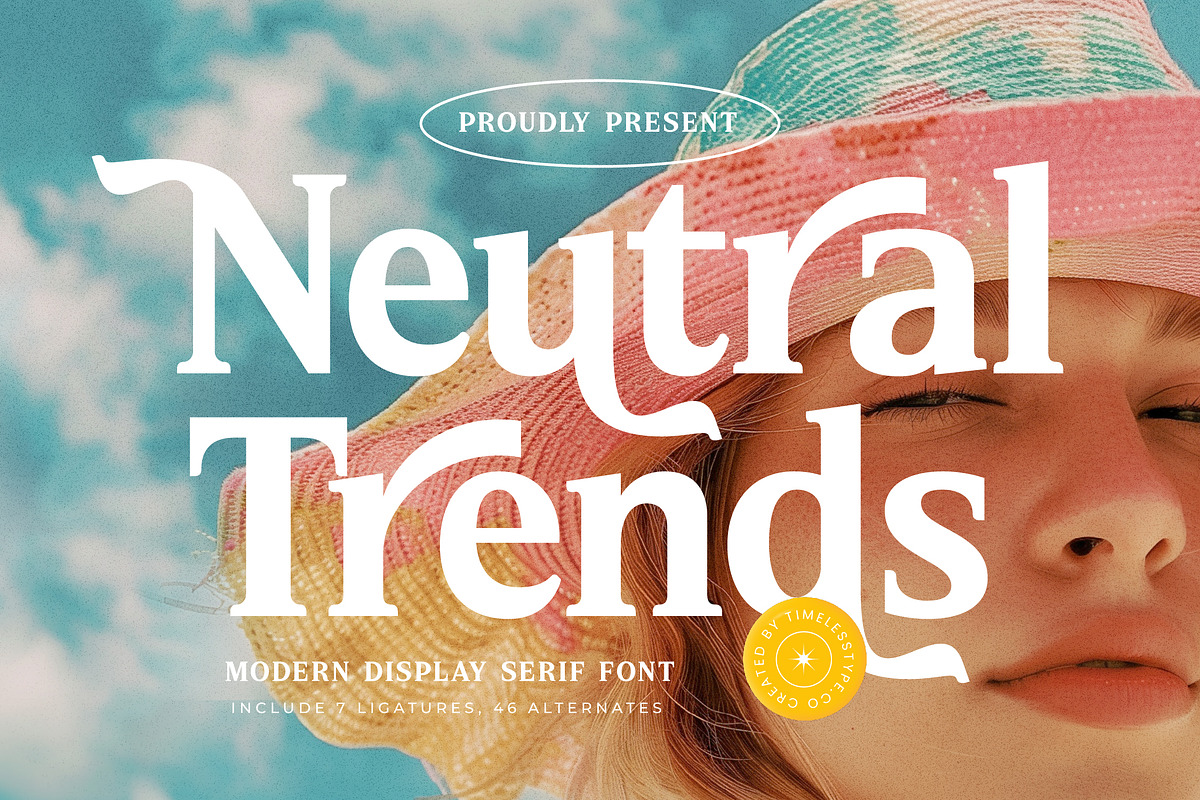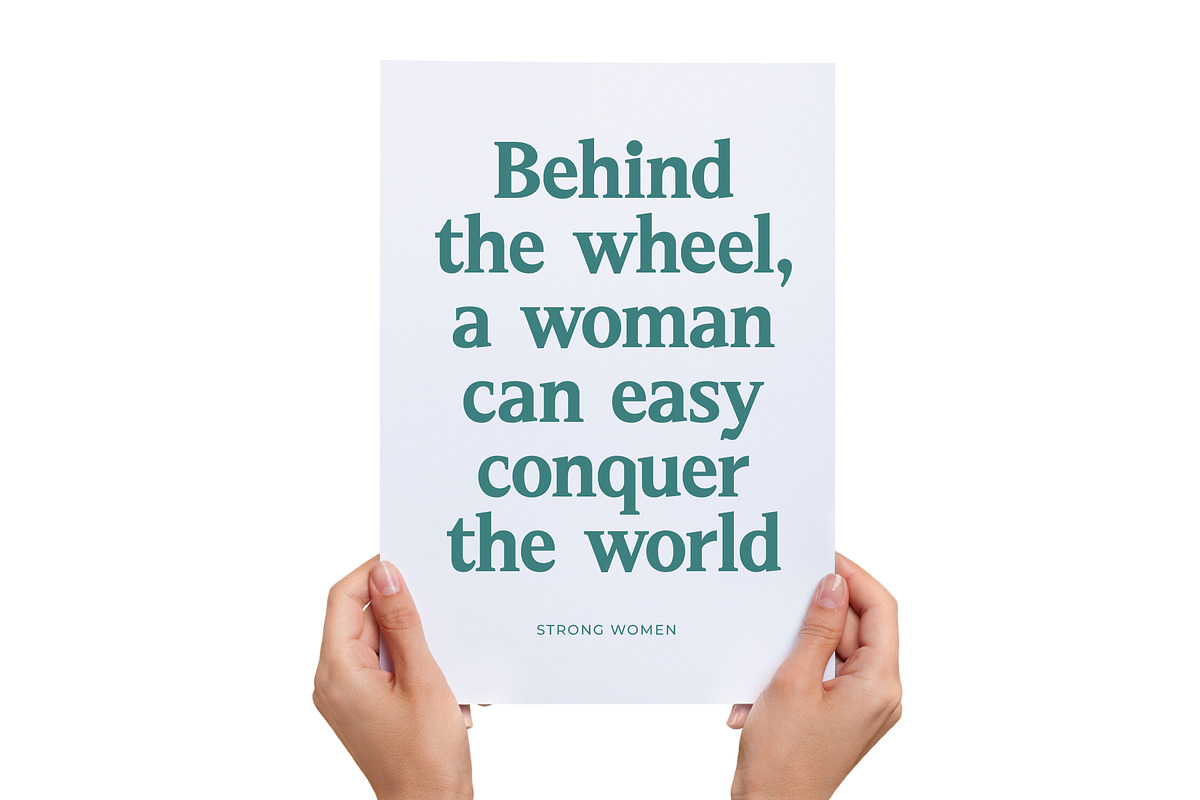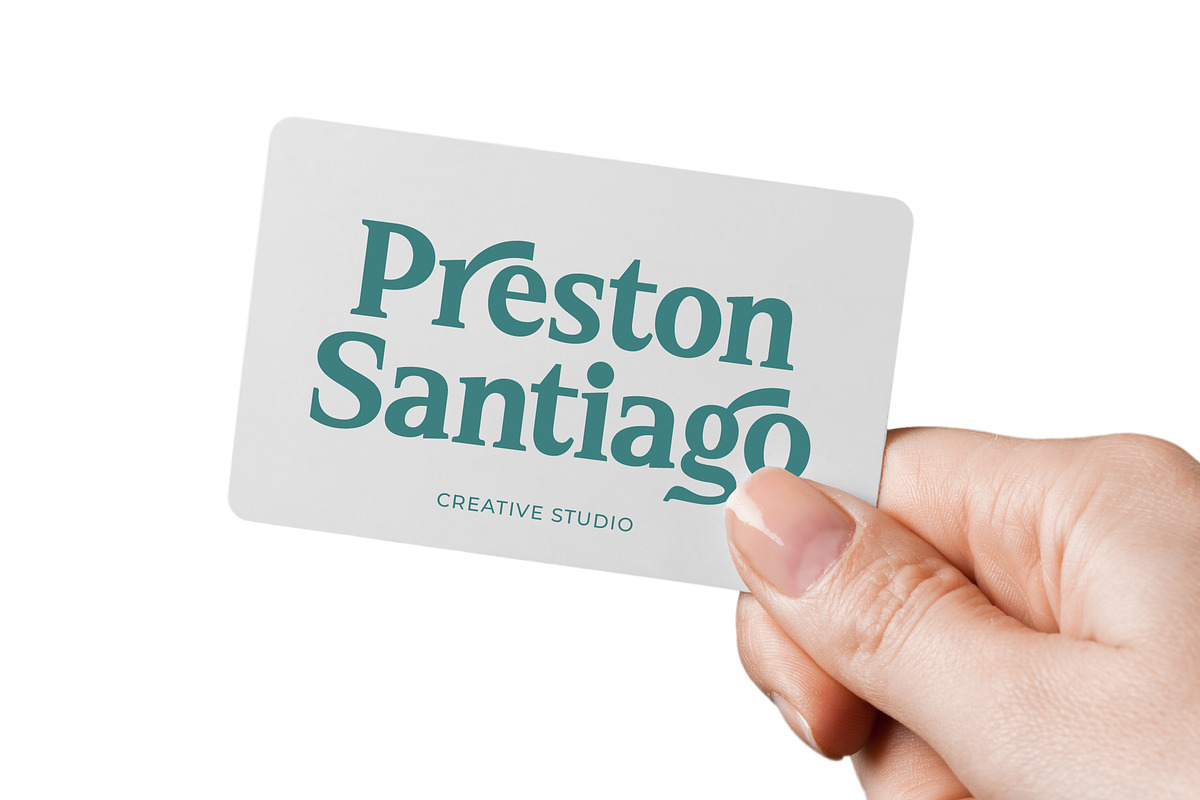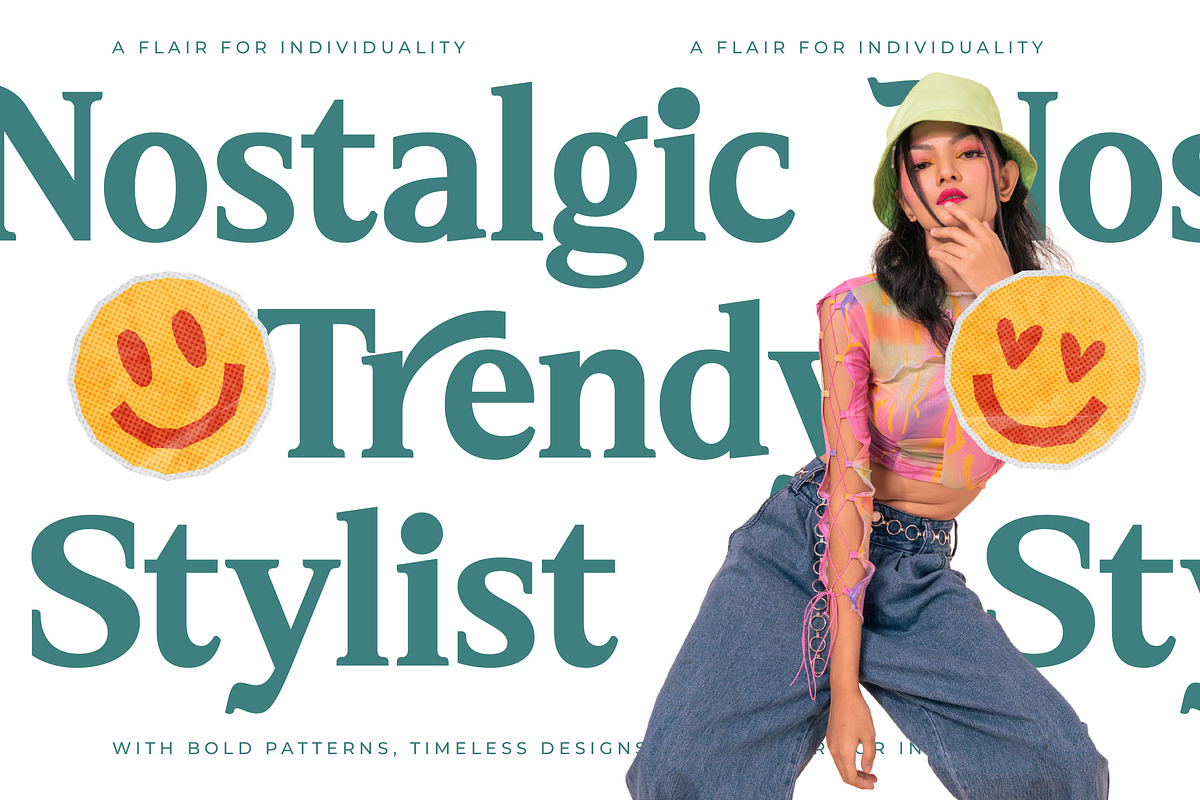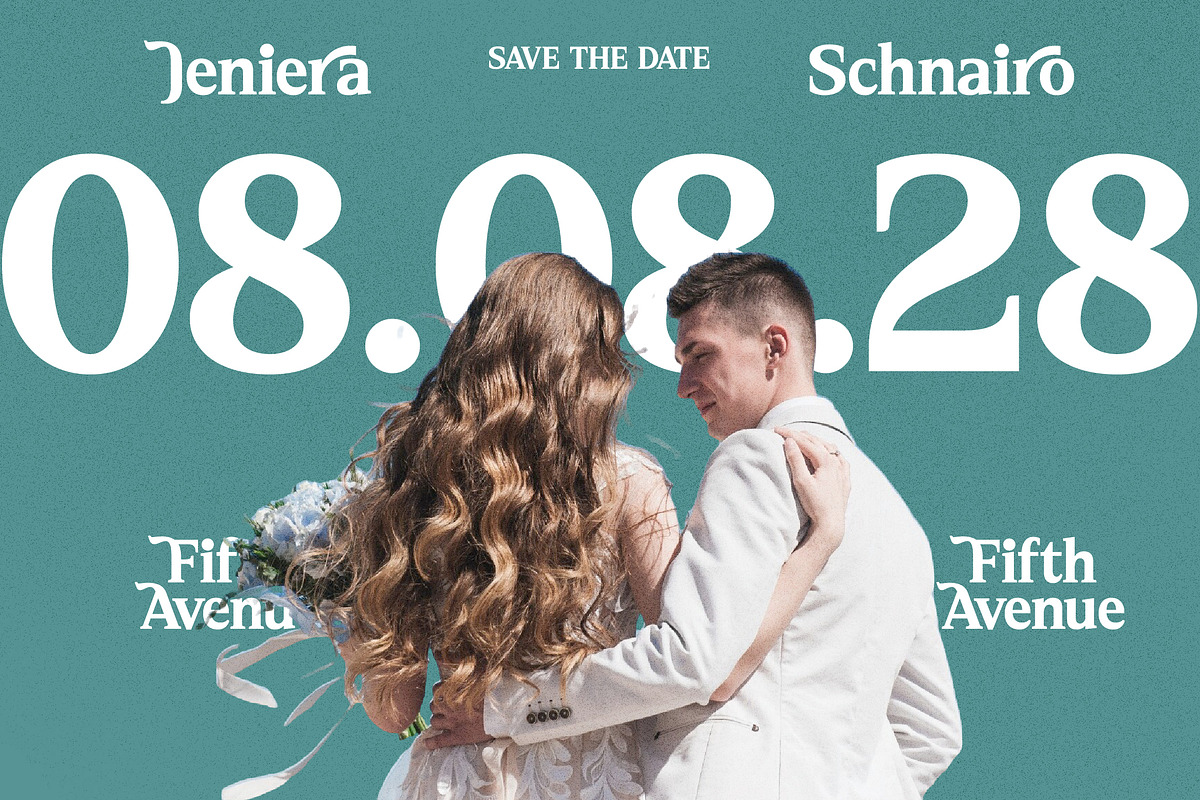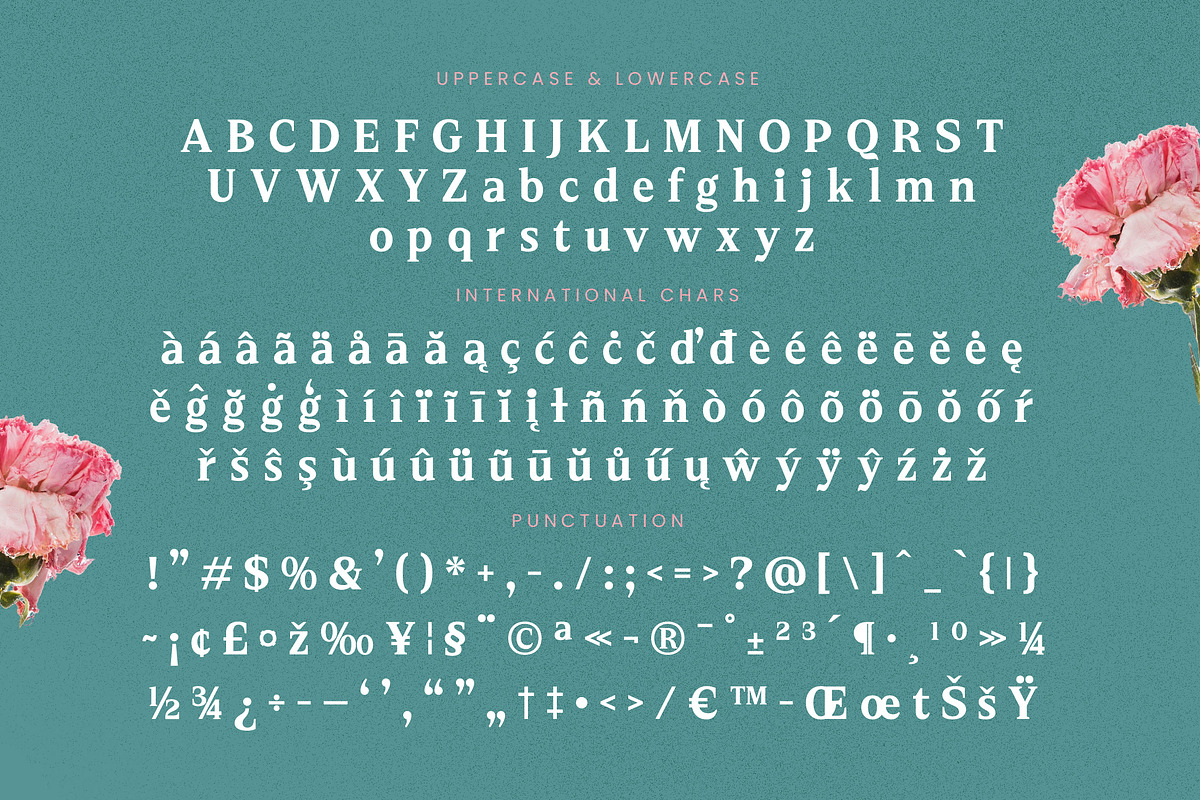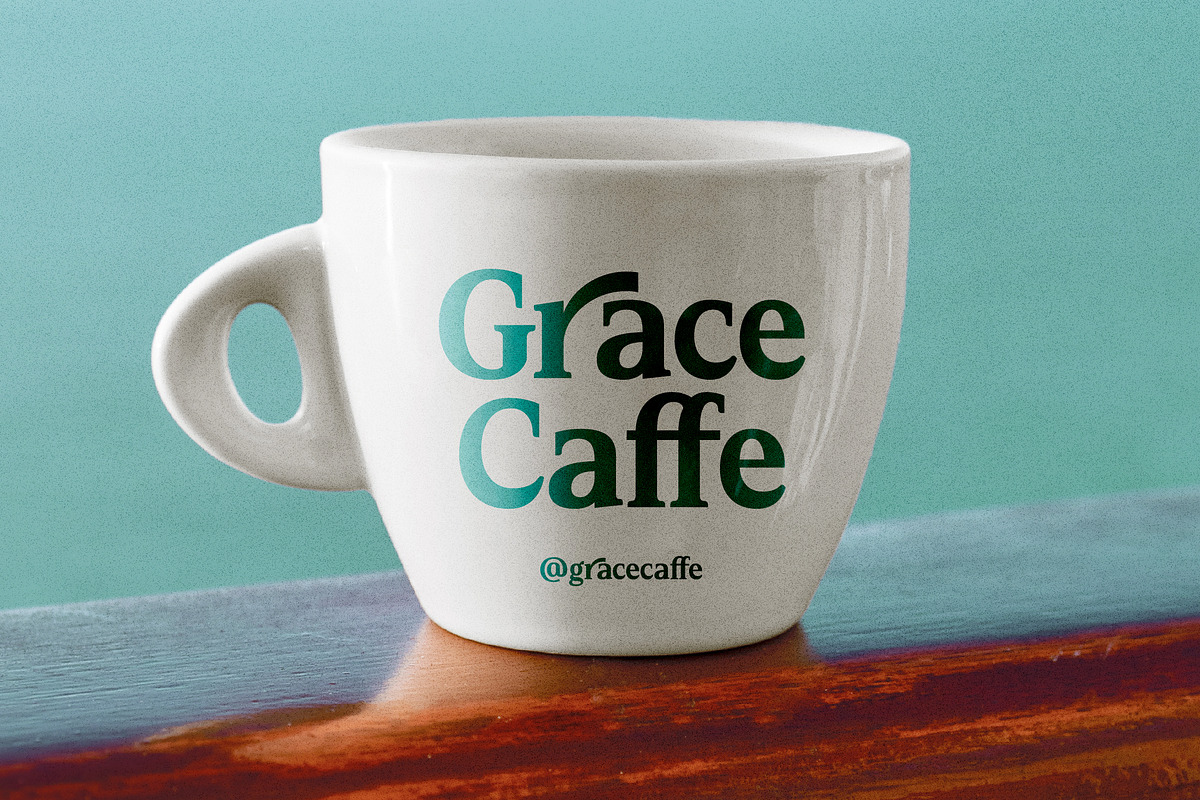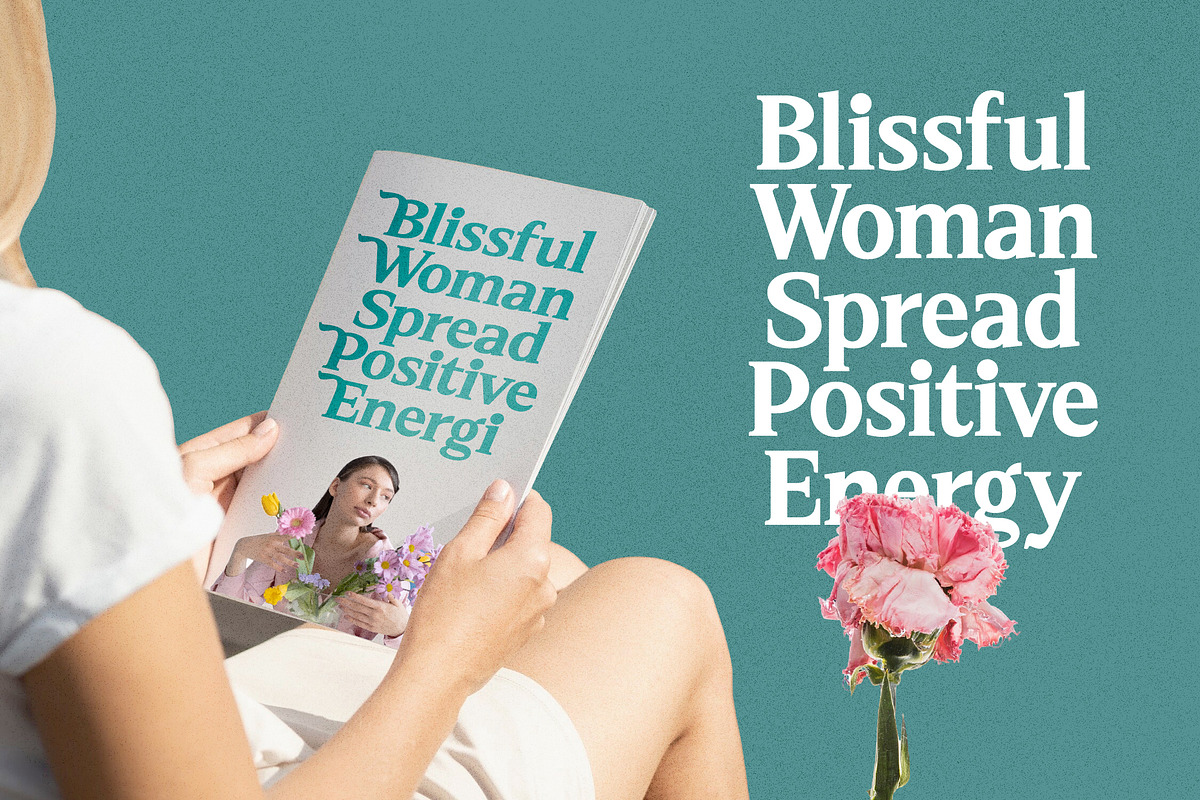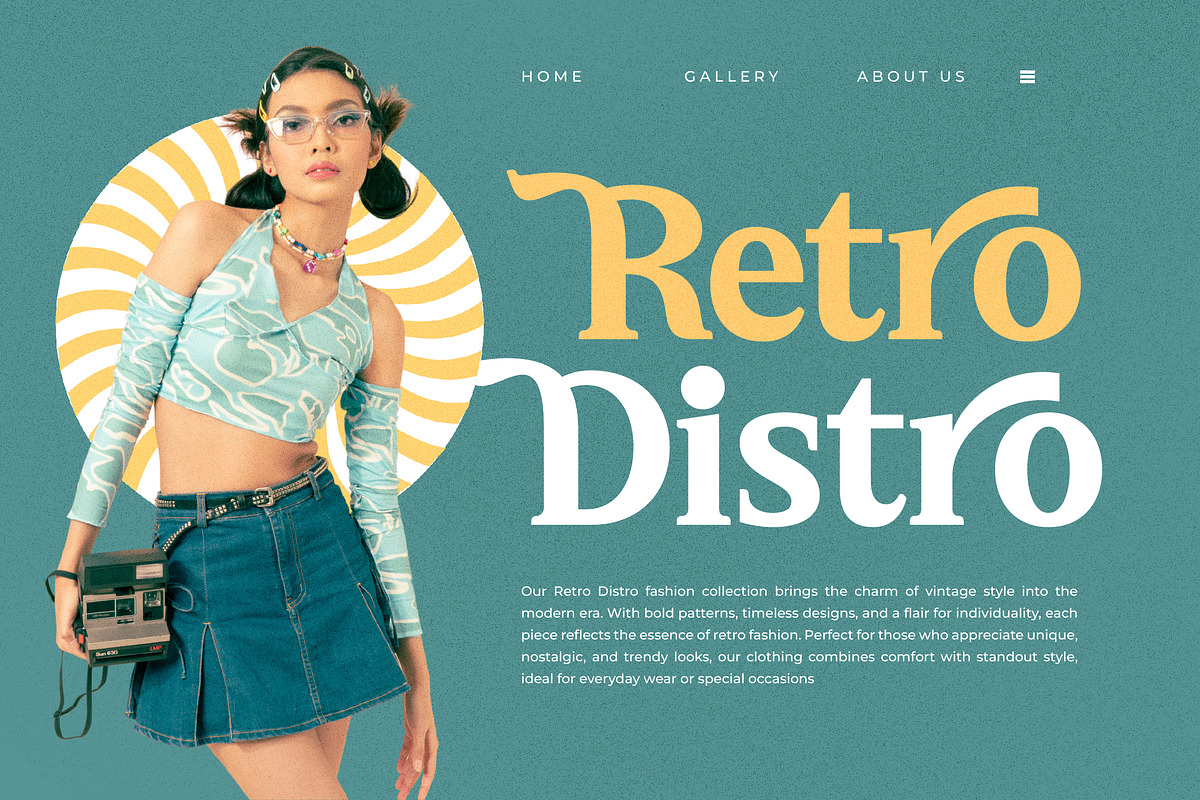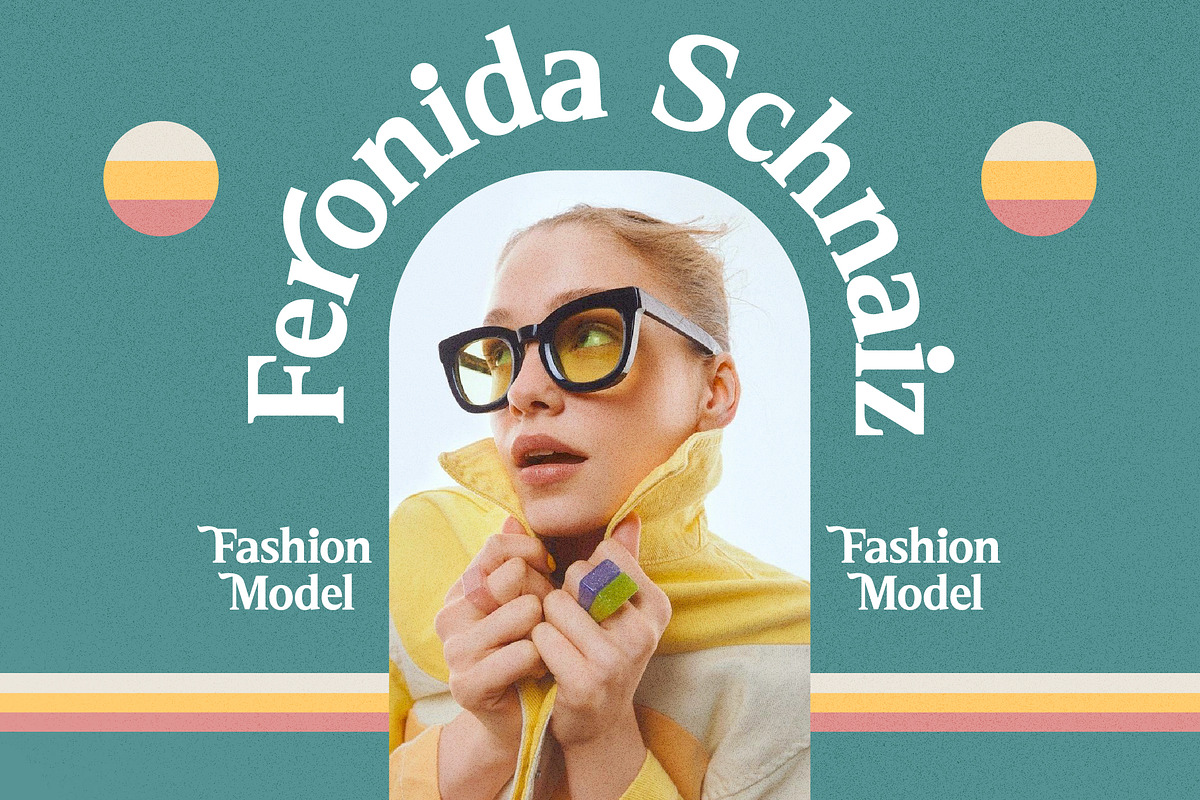
Neutral Trends Modern Display Serif
Elevate your creative vision with the sophisticated charm of Neutral Trends, a typeface designed to command attention with effortless grace. This font captures a perfect balance between timeless elegance and contemporary flair, making it an essential tool for designers seeking a refined aesthetic.
Drawing inspiration from the fluid movement of high-fashion runways and the relaxed luxury of sun-drenched coastal retreats, this typeface reflects a world where style meets substance. Its graceful curves and sharp serifs evoke an atmosphere of exclusivity and high-end curation.
Crafted for maximum branding impact, this modern serif display typeface offers a stunning luxury typography solution that feels both fresh and established. Every character is meticulously shaped to provide a high-contrast serif experience that functions beautifully as a primary editorial font for your most prestigious projects.
Riding the wave of the current modern serif trend, this typeface is at the forefront of character-driven typography that prioritizes unique visual storytelling. It stands out among editorial display fonts by offering a bespoke look that feels hand-crafted for the modern digital and print landscape.
From the creation of a stunning logo design to the intricate details of premium packaging, this font is versatile enough to anchor your entire branding identity. It is the ideal choice for high-end fashion layouts, sophisticated wedding invitations, and bold editorial spreads that require a touch of class.
This comprehensive kit includes an expansive set of ligatures and alternates that allow for endless customization and unique swashes. With full multilingual support and a wide array of international characters, it ensures your message resonates across borders and cultures seamlessly.
- Ligature 7 Alternate 46